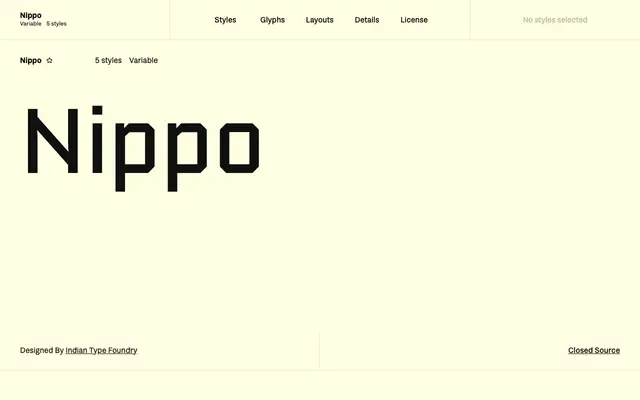
Nippo
A monolinear display sans drawn from sports jersey lettering, with straightened curves and diagonal joins across five weights plus a variable font.
Designed by Indian Type Foundry, Nippo takes its cues from athletics typography, stripping letterforms of most curves in favour of horizontal, vertical and diagonal strokes. Selective stroke thinning on crossbars prevents letters from massing too darkly, while six stylistic sets offer alternates for characters including G, L, M, N, R, T and the numeral 4. The family covers 135 languages and includes a weight-axis variable font.
Classified as Display by Fontshare; letterforms are derived from sports jersey lettering with monolinear strokes, straightened curves and diagonal joins that push it firmly into display territory rather than conventional geometric sans.